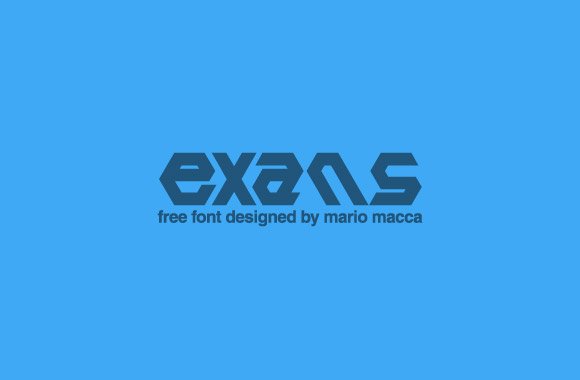
Exans Font
Exans is a personal project, my first experiment to create a typeface.
I started drawing individual letters on an hexagonal grid I’ve printed and then I digitalized all of them, realizing four different versions of the font.